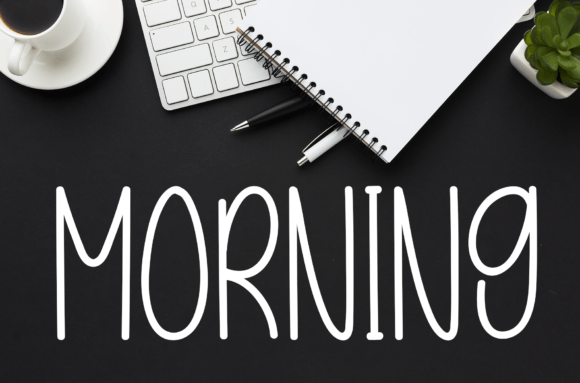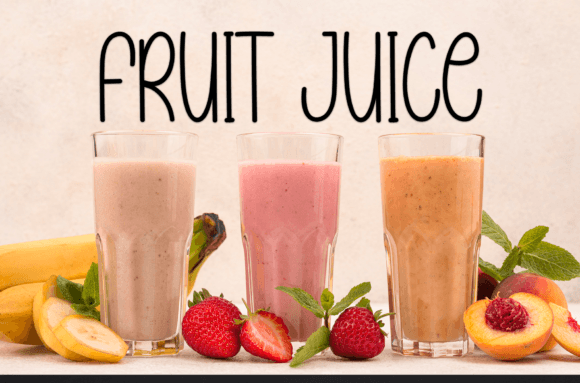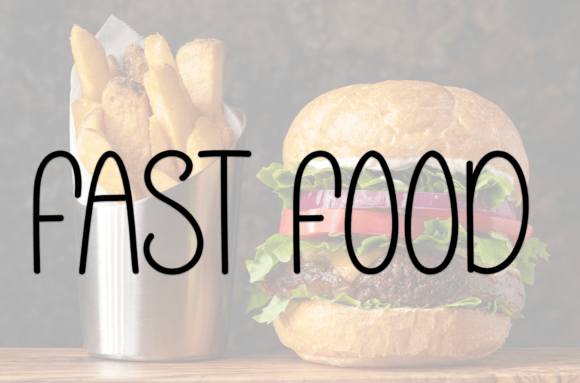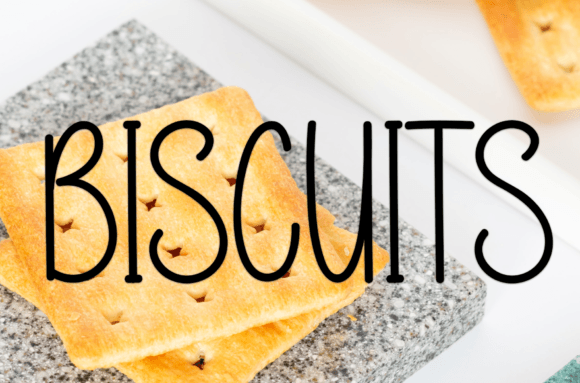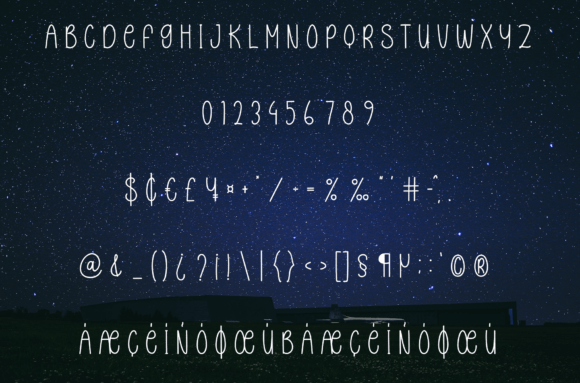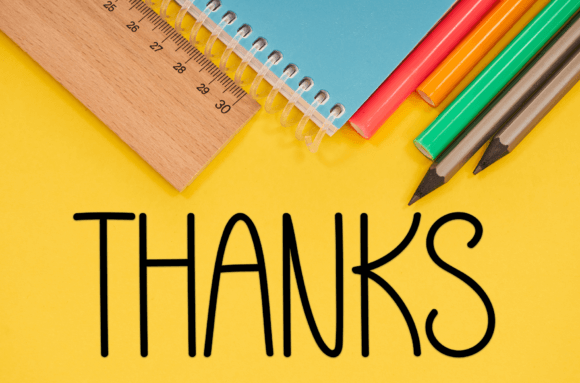
Handwriting Font
A Sweet and Friendly Handwritten Font
The Handwriting Font is a sweet and friendly handwritten typeface that adds a fun and personalized touch to any design. Its playful strokes and charming curves make it perfect for a variety of creative projects, including wedding invitations, greeting cards, and any design that needs a friendly, approachable feel. Whether you’re creating something for a formal occasion or a casual event, this font brings warmth and character to your work.
Ideal for Wedding Invitations and Special Events
For wedding invitations and special event designs, the Handwriting Font provides the perfect combination of romance and fun. Whether you’re designing save-the-dates, thank you cards, or event programs, this font adds a personal, charming touch to your wedding stationery. Its handwritten feel ensures that your invitations feel authentic, while its neat and playful style gives a sense of joy and excitement for your special day.
Great for Greeting Cards and Celebrations
The Handwriting Font is also fantastic for designing greeting cards and other celebratory materials. Whether you’re creating cards for a birthday, holiday, or baby shower, this font adds a fun, friendly vibe to your designs. Its casual handwritten style ensures that your messages feel genuine and personal, making them perfect for expressing your best wishes for any occasion.
Perfect for Branding and Logos
For branding and logo design, the Handwriting Font gives your brand a unique and approachable look. Whether you’re launching a creative business, designing a personal logo, or making branded content, this font offers a distinctive handwritten style that conveys personality and charm. It’s ideal for businesses that want to appear friendly, engaging, and creative while maintaining a level of professionalism.
Ideal for Product Packaging and Labels
The Handwriting Font is perfect for product packaging and labels, especially for products that need a personal, handmade touch. Whether you’re working on packaging for artisan goods, cosmetics, or gifts, this font ensures your design stands out with a fun, approachable style. Its friendly design makes it perfect for products aimed at consumers looking for authentic, customized experiences.
Fun, Legible, and Versatile
Despite its fun and casual handwritten style, the Handwriting Font remains legible and easy to use. Its smooth strokes and consistent design ensure that your text is clear and readable, even at smaller sizes or for longer passages. Whether you’re using it for headlines, captions, or full text, this font offers the perfect balance of playfulness and readability, making it suitable for a wide range of design needs.
Add Fun and Personality to Your Designs with Handwriting Font
If you’re looking for a sweet, friendly, and playful handwritten font to enhance your designs, the Handwriting Font is the perfect choice. Whether you’re designing wedding invitations, logos, greeting cards, or product packaging, this font brings a personalized, fun touch to your work. Let the Handwriting Font help you create memorable, creative designs that capture the essence of joy and personality.